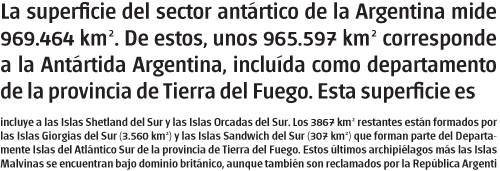
Chaco a signal typeface
Rubén Fontana
thin, light, medium, bold, black and their italics.
aco. The idea behind the font called CHACO originated after testing the deficiency shown in road signs in Latin America. The design began after a long documenting period. Throughout the various stages of the work, there were several tests and checks conducted of the formal solutions implemented which, based on the results, would gradually be changed until we finally reached, in this way, its definite design. The original project for the font features three steps, namely: regular, light and bold, yet by making progress in the development, it was possible for us to perceive that by enlarging the black and thin variances, the family with 5 different weights could offer very good results in mass media, such as newspapers, magazines and tv. In order to expand its possibilities of utilization, the set was completed with italics and small capitals.
thin, light, medium, bold, black
and their italics.
Small Caps available in thin, light, medium and bold.
features Basic Latin/English letters euro